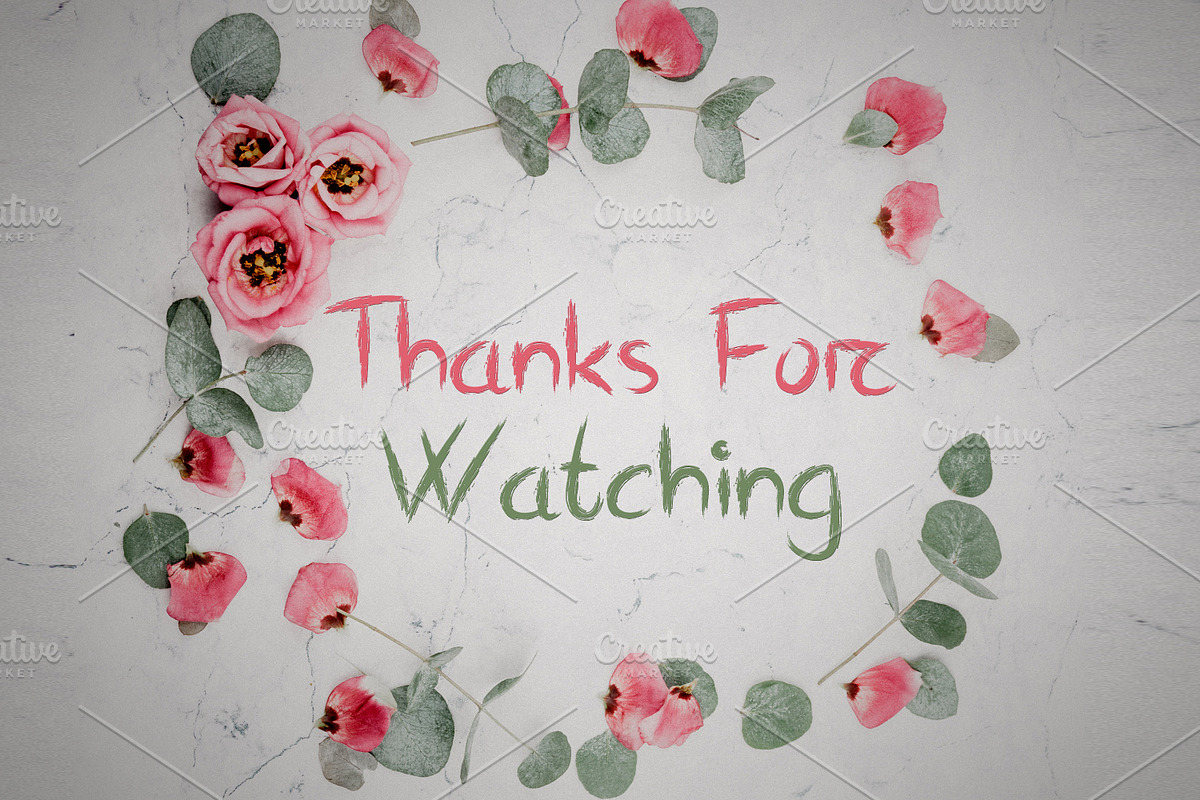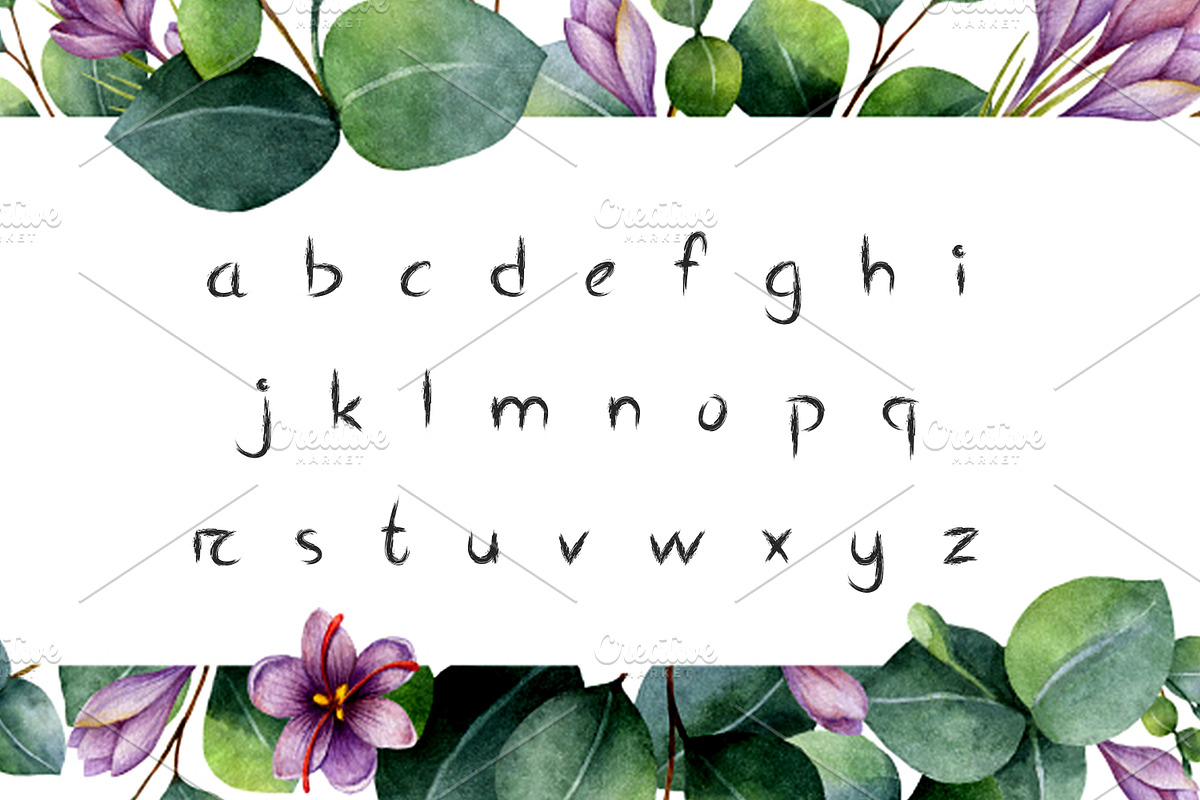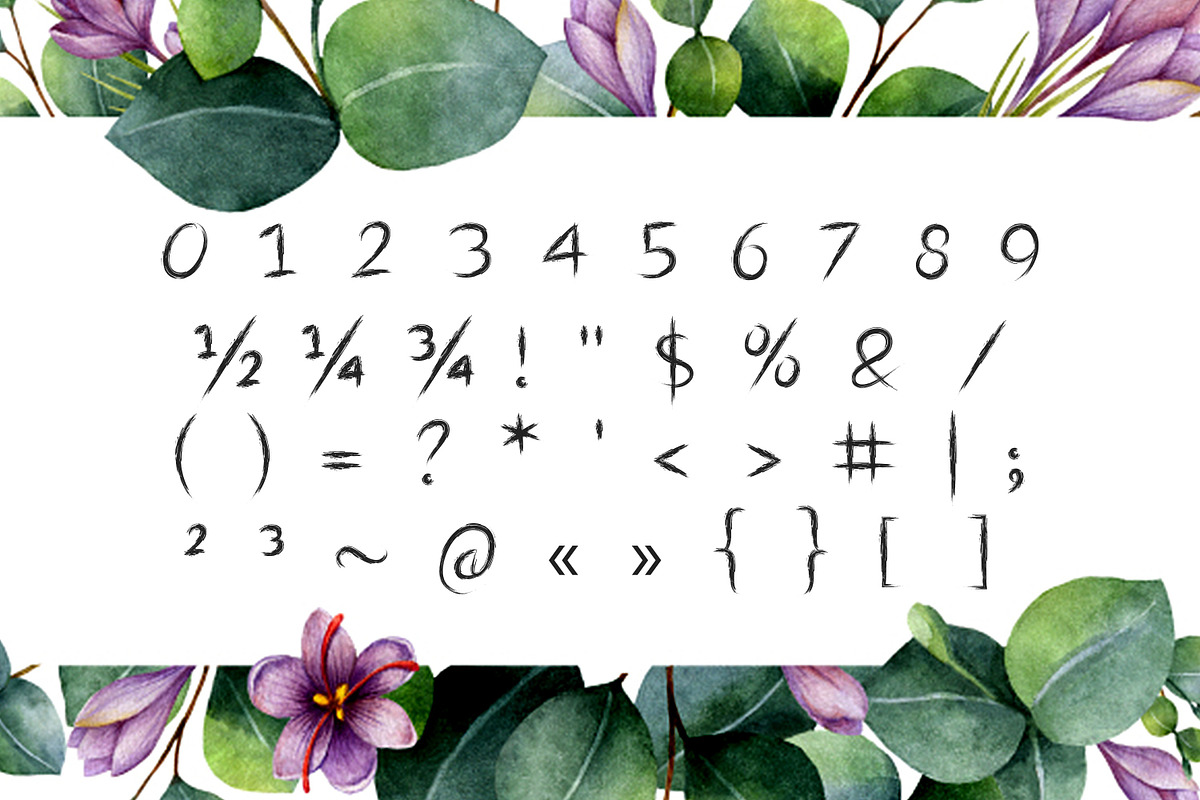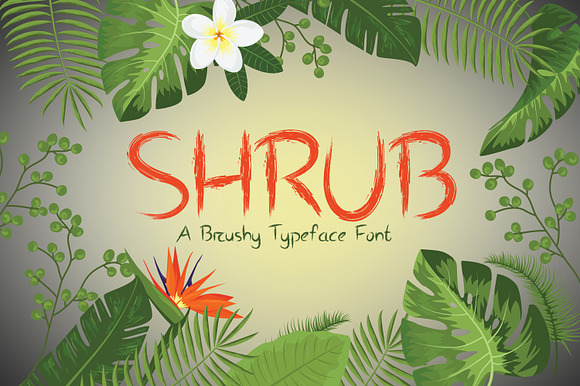
Shrub Brushy Font
Make your creative graph with “Shrub Brushy Font” suitable for any innovative design. Shrub Brushy Font is a display typeface with a unique, detailed, and handmade look. Made with scanned/vectorized acrylic brush strokes and inspired from a vintage catalog. Upper case, lower case, and special characters included -Shrub Brushy Font is a classic addition to your collection. Only available here on Creative Market.
Shrub Brushy Font by zahidhossainalif fits naturally into Branding, posters, packaging, typography.